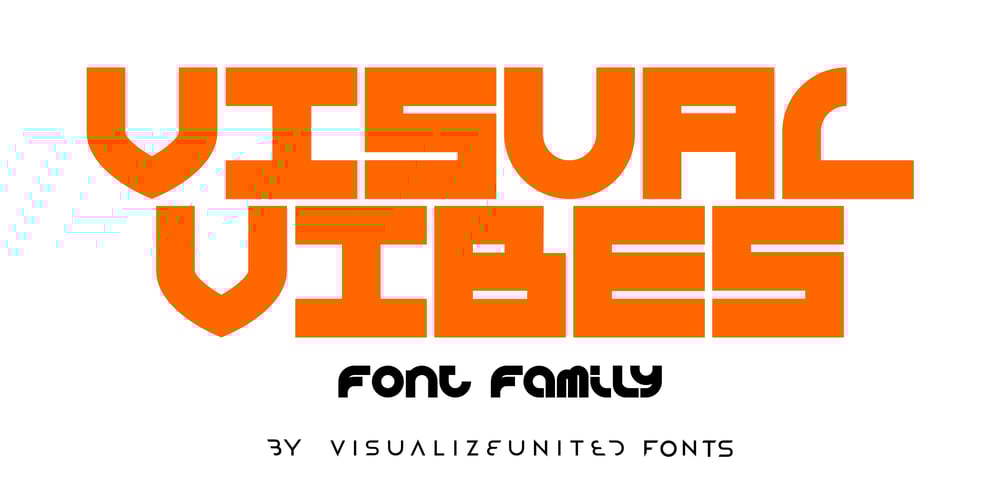
Visual Vibes
Visual Vibes font
Visual Vibes Font Family was designed by Tony Evreniadis and published by VisualizeUnited Fonts. Visual Vibes contains 5 styles and family package options. The Visual Vibes Font Family is a display typeface, with an almost square-like design. Having a dynamic look & feel, it is suggested for Posters, Books/Titles, Ads, Social Media, Apps, TV and beyond. It is offered with a Latin, Extended Latin, Central European and Greek character set.These sets offered now can be viewed in the image section on display. Have fun designing your projects and feel free to share the real ๐Ÿ˜ (applications/designs) with me. Thank you!